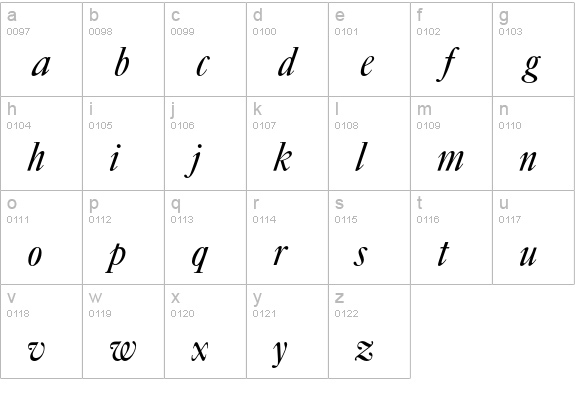
Caslon 471 Italic is a distinctive, italic variant in the Caslon typeface family \xE2\x80\x94 well suited to design and typography projects.
Caslon 471 Italic is a timeless and elegant font that exudes sophistication and charm. With its graceful slant and delicate curves, this font is perfect for adding a touch of refinement to any project. The italicized style adds a sense of movement and fluidity, making it ideal for conveying a sense of elegance and grace. What makes Caslon 471 Italic even more appealing is that it is available for free download at FontsMarket.com. This means that you can easily access this beautiful font and use it in your designs without any cost. Whether you are creating invitations, posters, or branding materials, Caslon 471 Italic is sure to elevate your work and leave a lasting impression. Don't miss out on this opportunity to enhance your projects with this stunning font - download Caslon 471 Italic for free today!